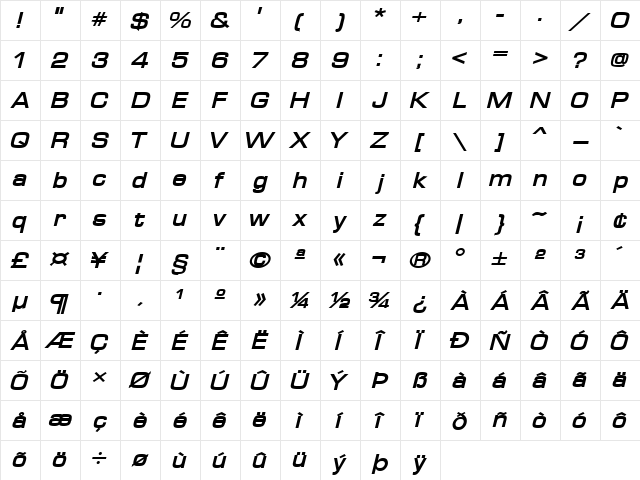
Waukegan LDO Bold Oblique Font Preview
| Foundry | LDO Fonts |
| Designer | Luke Owens |
Design Context for Waukegan LDO Typeface
Waukegan LDO offers clean, dependable letterforms without strong stylistic allegiance, making it a practical choice for designers who need flexibility. Its italic angle brings a sense of urgency and motion to the letterforms. Its bold stroke weight gives it real presence on the page.